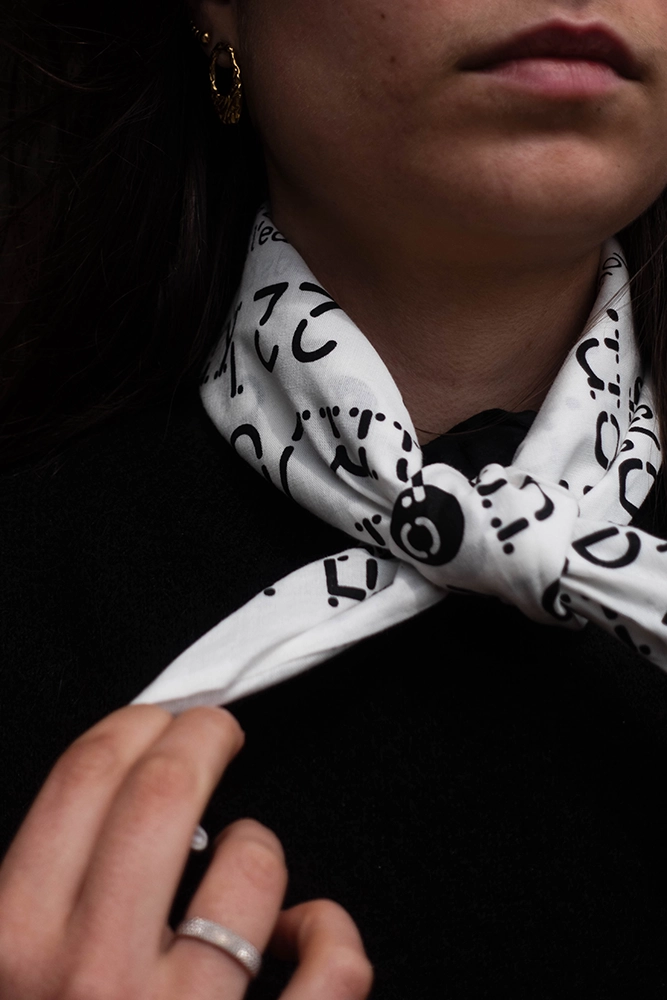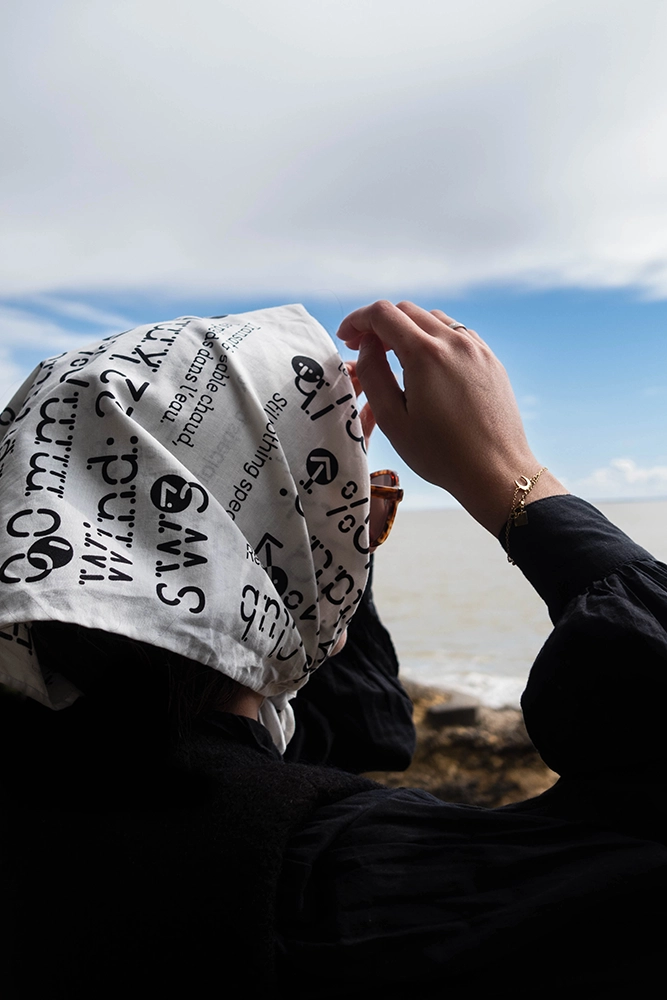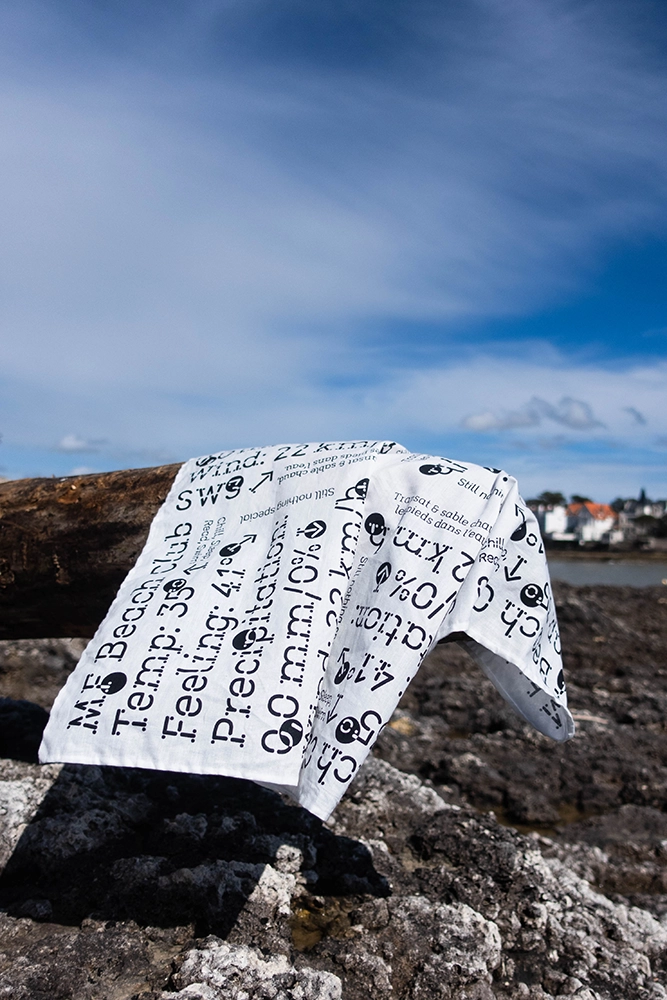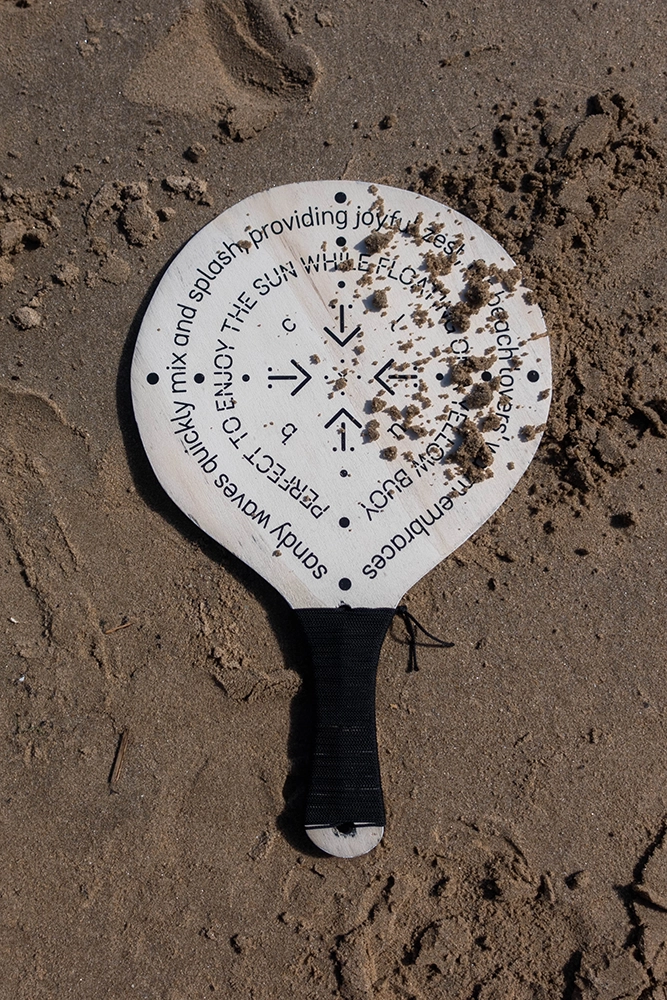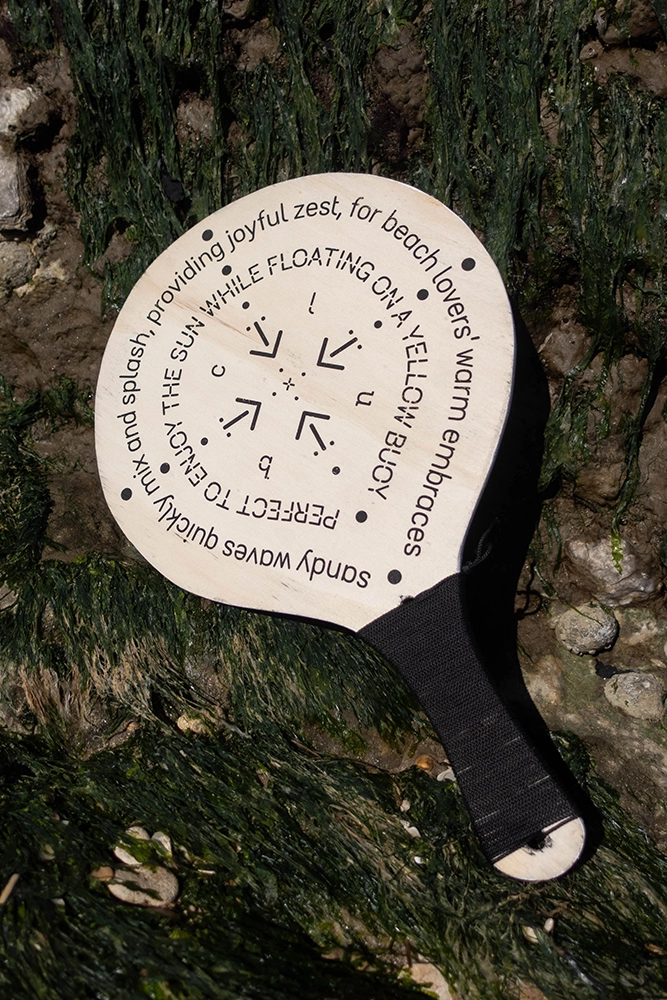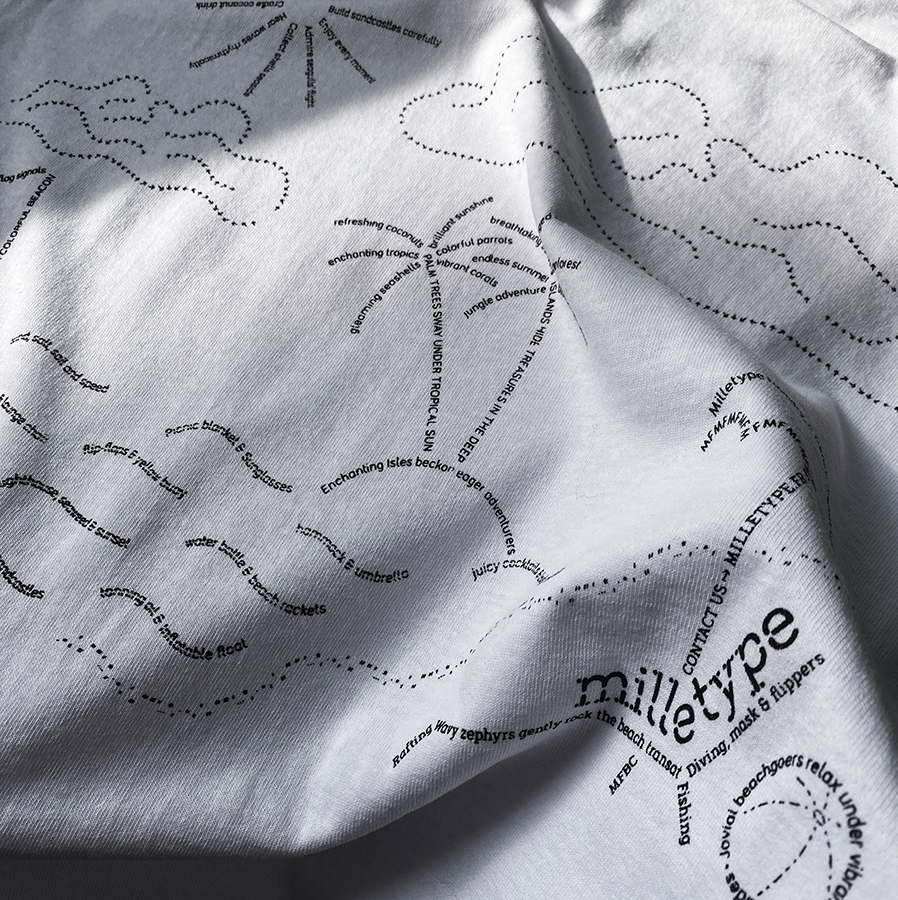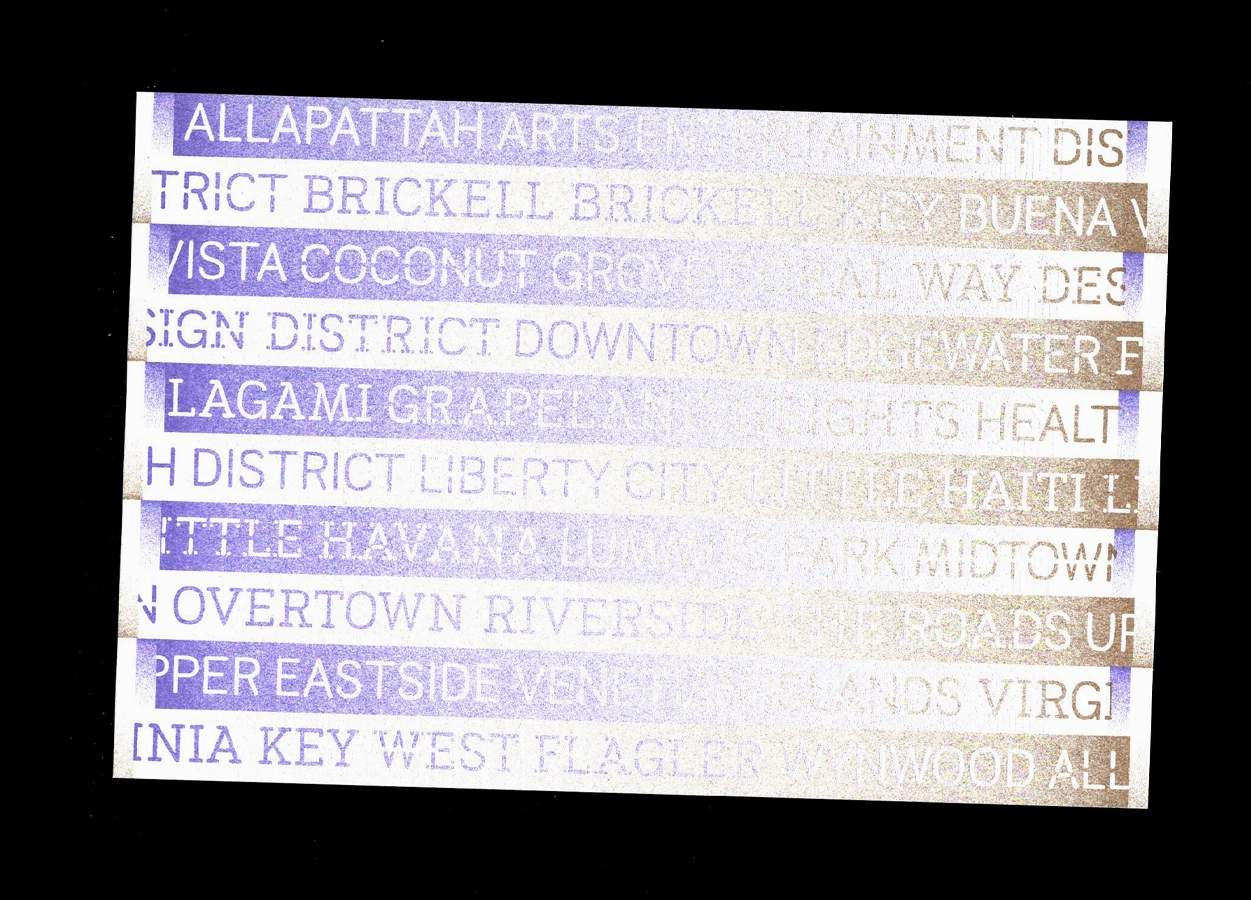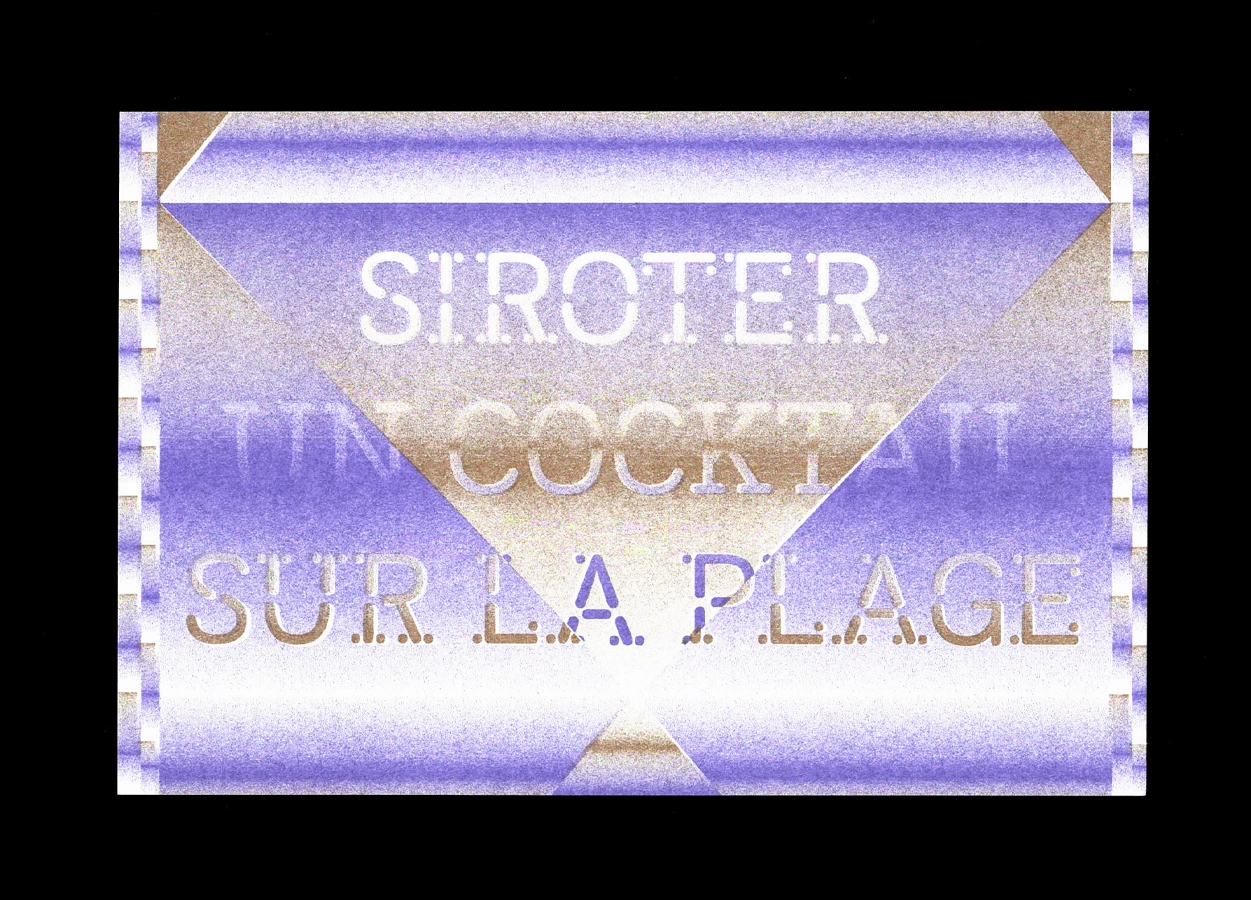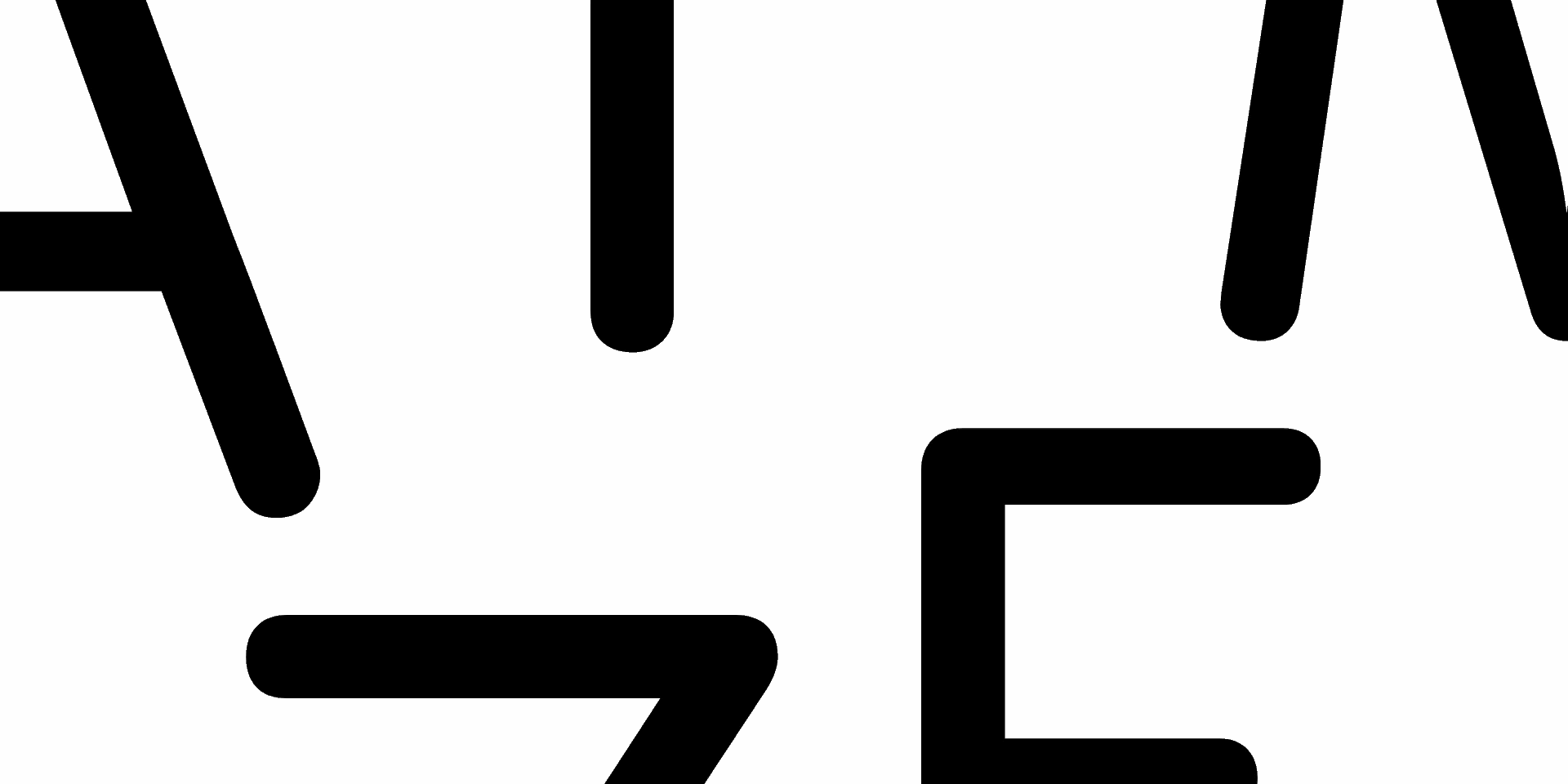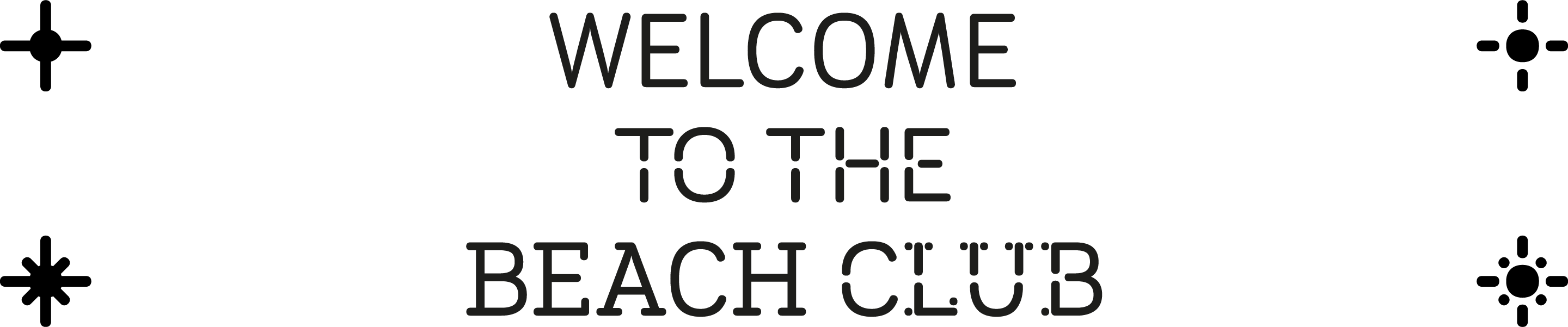
Lemon buoy
Beach Club
A vibrant and playful typeface designed to evoke the carefree joy of summer days by the sea. This font features rounded edges and a casual, hand-drawn feel, making it perfect for designs that require a touch of warmth and informality. Ideal for beach-themed graphics, casual branding, and advertising, Beach Club adds a splash of sun-soaked charm to any project. Its easy legibility and upbeat style ensure that it stands out in both digital and print media. Make your next design project feel like a day at the beach!